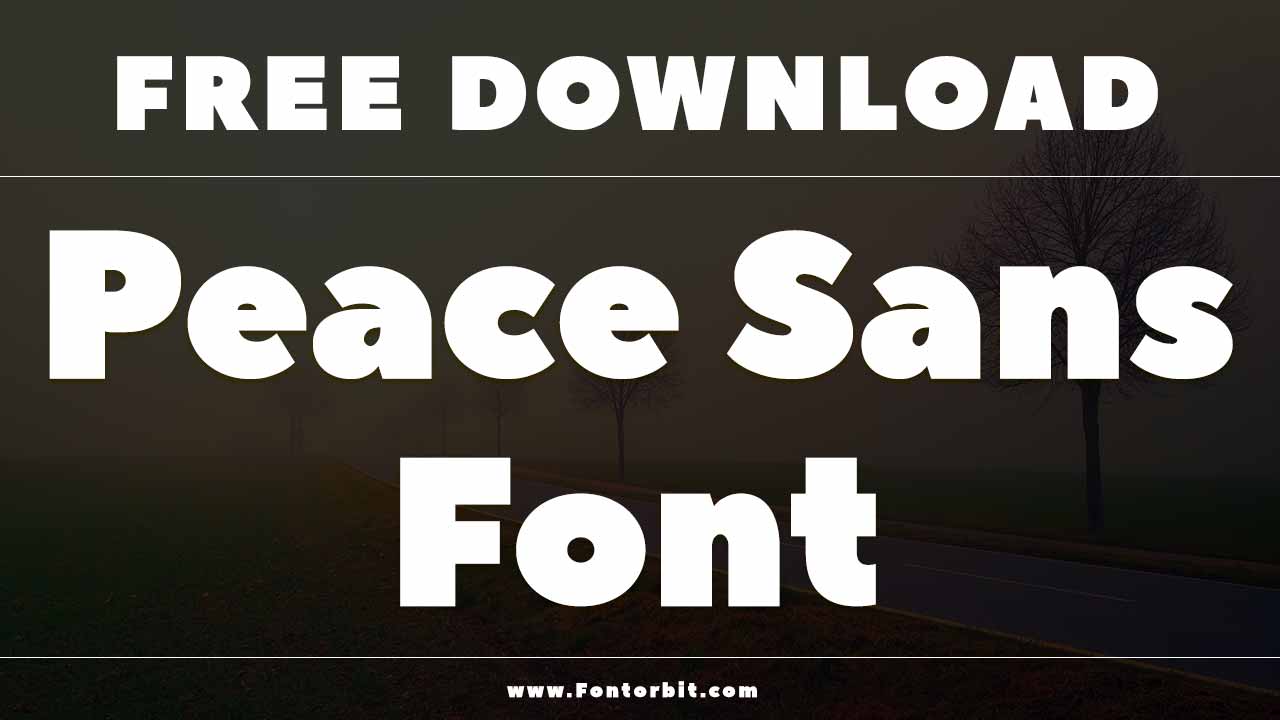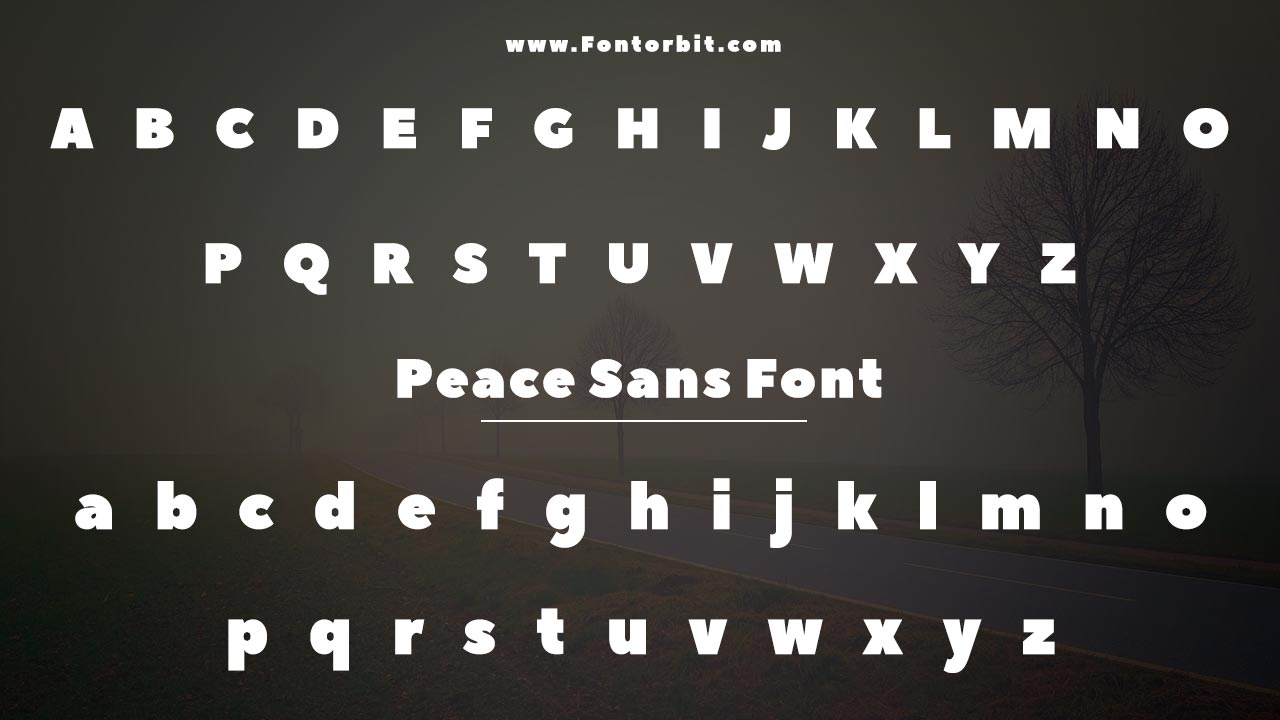
Peace Sans is a bold, geometric sans-serif font. It brings a sense of peace and clarity to designs. Sergey Ryadovoy and Jovanny Lemonad designed it as a free font. You can use it for both commercial and personal projects.
Its clean lines and rounded edges create a modern, approachable look. It works well for printed materials, posters, and websites. Peace Sans adds an inviting yet strong presence to typography. Let’s explore how it can enhance your design projects.
It’s a single-style font, but its bold and geometric design makes it versatile enough to be used in various contexts, from headlines to body text.
Why Choose Peace Sans?
Peace Sans stands out in the world of typography thanks to its balance of boldness and friendliness. Below is a quick overview of why designers choose Peace Sans for their projects:
| Type | Sans-serif, Bold |
| Designer | Sergey Ryadovoy & Jovanny Lemonad |
| Character Set | 416 glyphs |
| Best for | Headlines, logos, branding, posters, web design |
| Style | Clean, modern, geometric |
Peace Sans offers designers a clean, bold typeface that can be used in a wide range of projects from websites to printed materials. Its modern, geometric style is both impactful and approachable, ensuring your designs are always clear and effective.
Design And Character
The character of Peace Sans lies in its clean and geometric design. With rounded edges and bold strokes, the font exudes strength while maintaining an inviting, friendly vibe. Its bold style ensures it stands out, while its simplicity ensures it doesn’t overwhelm the design. Whether you’re designing posters or UI elements, Peace Sans is the perfect font to use to make a statement.
- Character Map: 416 glyphs, supporting various characters, punctuation, numbers, and symbols.
- Usage: Perfect for titles, posters, branding, and other design applications where bold, readable type is key.
Where Can You Use Peace Sans?
This versatile font can be applied in various contexts, ensuring your designs stand out. Some key areas where Peace Sans shines include:
- Web Design: Use it in headers, buttons, or primary navigation.
- Posters: The bold style ensures it grabs attention in printed materials.
- Branding: Great for logos and brand identity creation.
- Headlines: Its bold presence is perfect for making bold statements in articles or advertisements.
Peace Sans And Color Choices
The clean, geometric nature of Peace Sans pairs well with minimalistic and bold color palettes. This font’s versatility means it can stand out in vibrant designs or complement a more neutral, calm color scheme. Pair it with soft pastel colors for a soothing vibe, or use contrasting shades to create bold, eye-catching designs.
5.What’s The Best Use Case For Peace Sans? Peace Sans is ideal for bold headers, posters, branding materials, and any project requiring strong, readable typography.